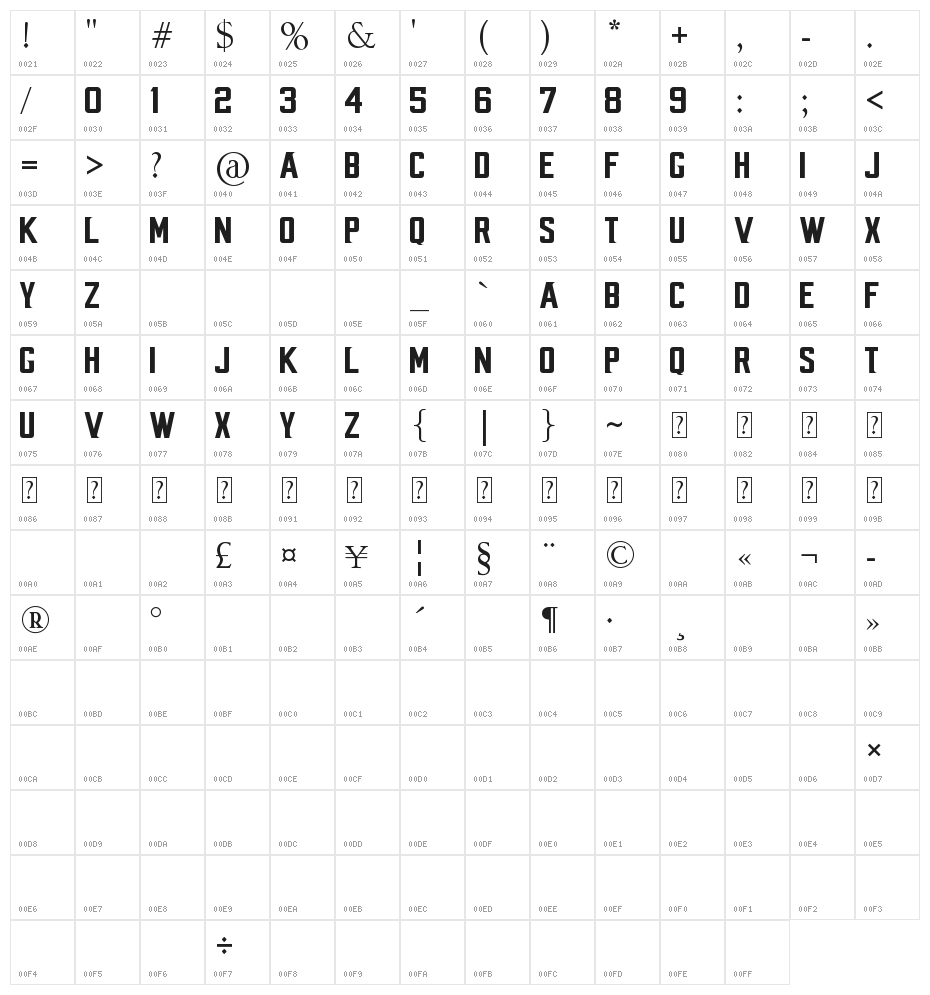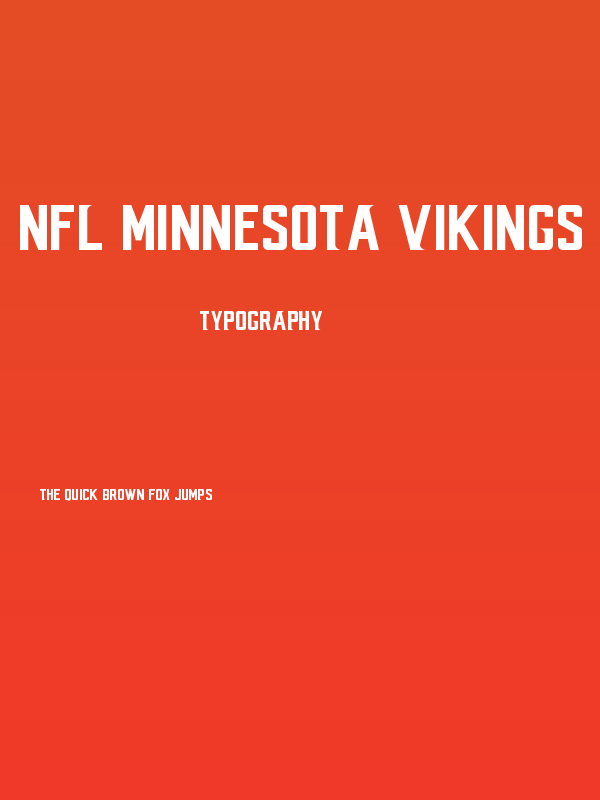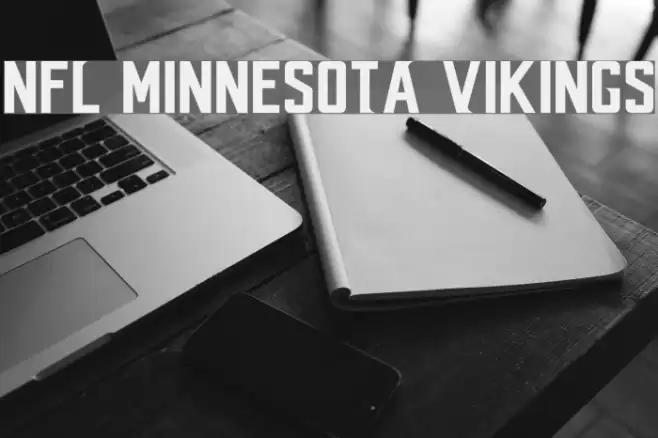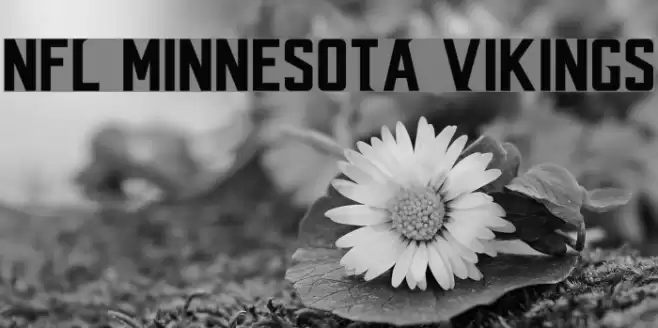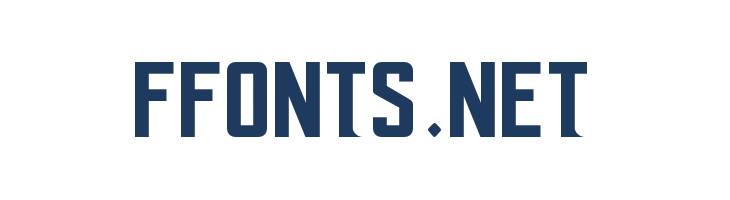
NFL Minnesota Vikings Font
NFL Minnesota Vikings Description
This font features a bold and commanding presence with its strong, geometric shapes and sharp edges. The uppercase letters are particularly striking, with a uniform height and width that convey a sense of stability and power. The numbers and special characters maintain this robust style, ensuring consistency across all elements. The font's design is clean and modern, making it suitable for a variety of applications where a bold statement is needed. Its high contrast and tight character spacing enhance readability while maintaining a compact look.
| Use Case | Logos, Headlines, Branding |
| Proposed Projects | Ideal for sports branding, team logos, merchandise, and promotional materials. |